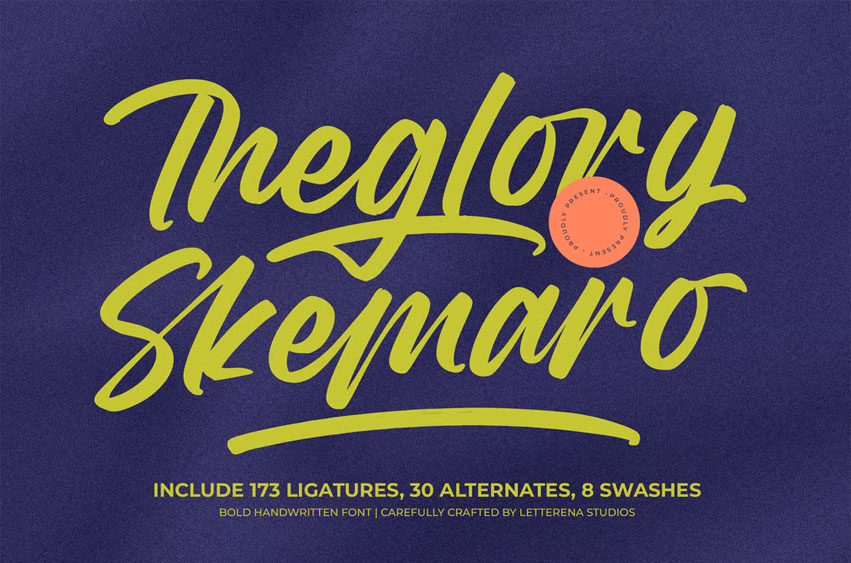
Theglory Skemaro Font
Theglory Skemaro Font is suitable to complement your digital and printed creative products. This font is perfect for posters, social media posts, branding, personal projects, etc.